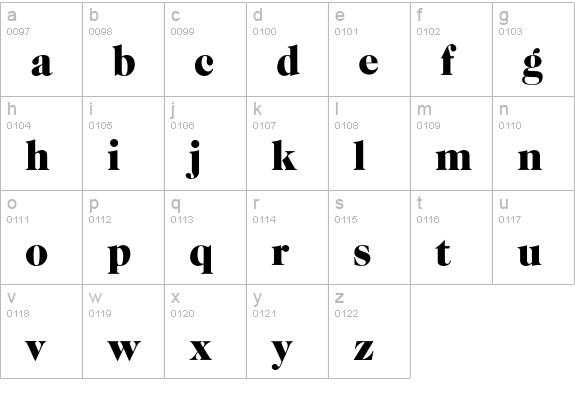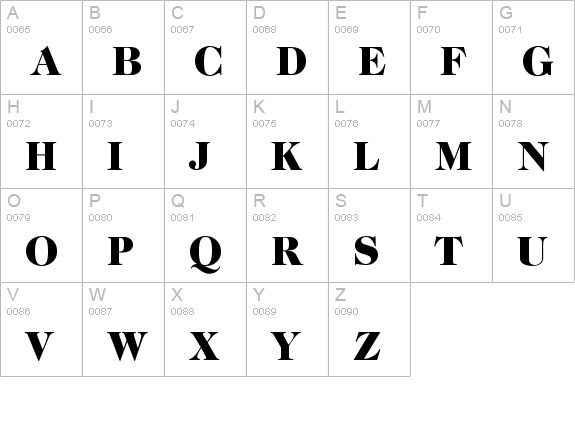
Caslon 224* Black is a maximum-weight, dramatic variant in the Caslon typeface family \xE2\x80\x94 well suited to maximum-impact headlines, posters, and packaging.
Caslon 224* Black font is a timeless and sophisticated typeface that exudes elegance and charm. With its bold and distinctive letterforms, this font is perfect for creating impactful headlines, titles, and branding materials. The striking contrast between thick and thin strokes adds a touch of drama and flair to any design project. What sets Caslon 224* Black font apart is its versatility and ability to make a bold statement while maintaining a classic aesthetic. Whether used in print or digital media, this font commands attention and leaves a lasting impression on the viewer. The best part? Caslon 224* Black font is available for free download at FontsMarket.com. So why wait? Elevate your designs with this stunning typeface today and make a lasting impact with every project you create.